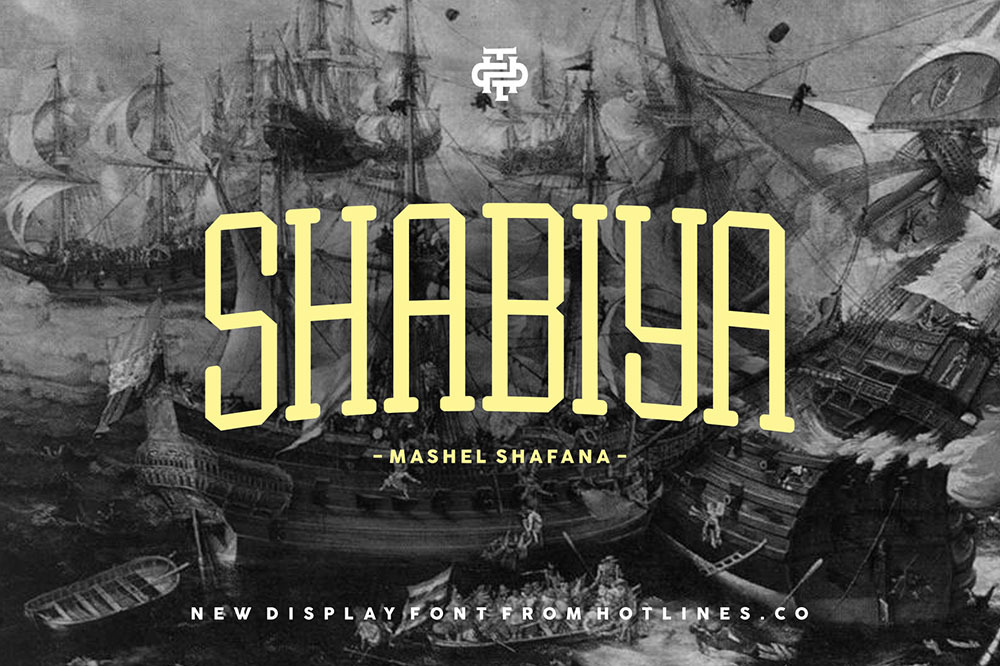
Shabiya typeface
Shabiya typeface is new font from Hotlines.co, elegant feel character set. To create the beautiful combination, just mix the uppercase and lowercase then mix with the alternative glyphs.Shabiya typeface insfire from sport club
Shabiya typeface
Shabiya typeface is suitable font for many creative products & designs.